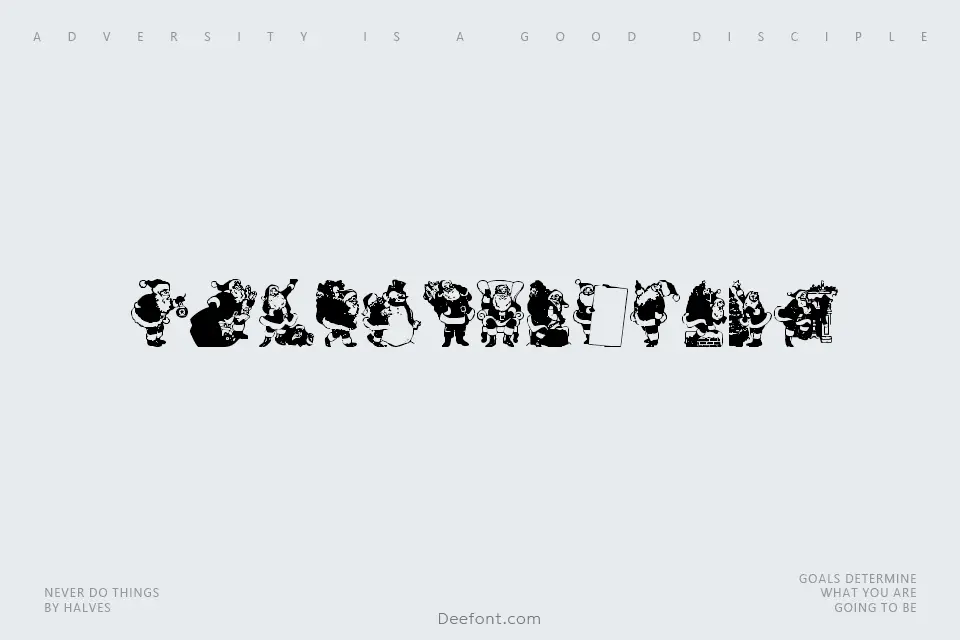
RYP Snata 1 Font
RYP Snata 1 is a festive display font designed by Robyn Phillips, perfect for holiday and Christmas projects. This decorative typeface brings a charming and playful character to seasonal designs, making it ideal for greeting cards, decorations, and festive typography. The font features Santa-themed elements and playful letter forms that capture the spirit of the holiday season. With its whimsical design, RYP Snata 1 adds a touch of holiday magic to any creative project, from digital designs to print materials. The font’s cheerful aesthetic makes it popular among designers seeking authentic Christmas-inspired typography for their seasonal work.